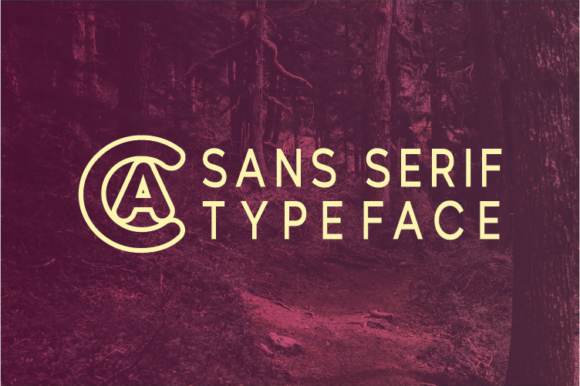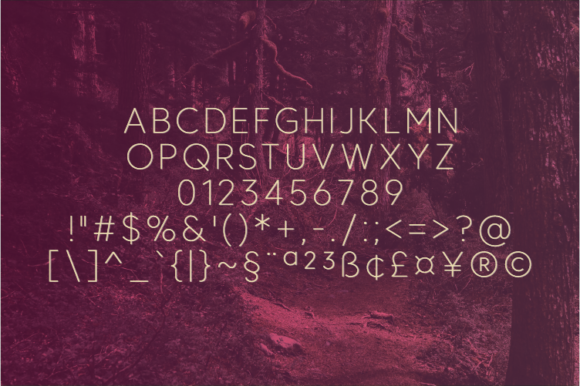
Introduction to Rezeltye Font Font
Fonts play a crucial role in design, and the Rezeltye Font font is a typeface that brings both character and versatility to any project. Whether you’re working on a branding project, a website, or a print design, the Rezeltye Font font offers a unique style that can elevate your work.
Rezeltye is an elegant and distinguished sans serif font.
Fall in love with its incredibly versatile style and use it to create gorgeous wedding invitations, beautiful stationary art, eye-catching social media posts, and much more .
Key Features of Rezeltye Font Font
Why Choose Rezeltye Font Font?
The Rezeltye Font font is more than just a typeface – it’s a design tool that helps you communicate your message with style and clarity. Its unique character set and versatile design make it suitable for a wide range of applications, from elegant invitations to bold headlines.
With its carefully crafted letterforms and balanced proportions, the Rezeltye Font font ensures readability and visual appeal across all mediums.
What makes Rezeltye Font font special?
The Rezeltye Font font stands out with its unique design, exceptional readability, and versatility across various design applications.